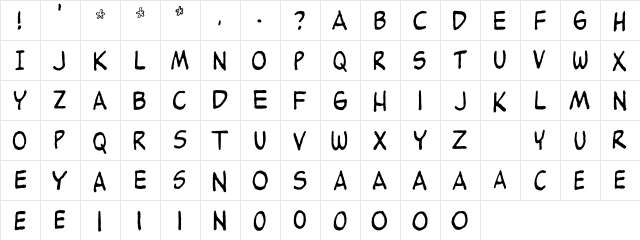
Groundnut Regular
Design Context for Groundnut Typeface
Groundnut softens its letterforms with rounded terminals, giving it an approachable, friendly quality that works well in consumer-facing and digital contexts.
Well-suited to UI design, mobile interfaces, and any brand that wants approachability without sacrificing clarity.
Font Pairing: Pairs well with a rounded or humanist sans for body copy, maintaining the friendly tone without relying on Groundnut to carry extended reading.
Pro Tip: Use Groundnut for UI elements, app interfaces, and anywhere a friendly, approachable tone needs to be maintained without sacrificing clarity.